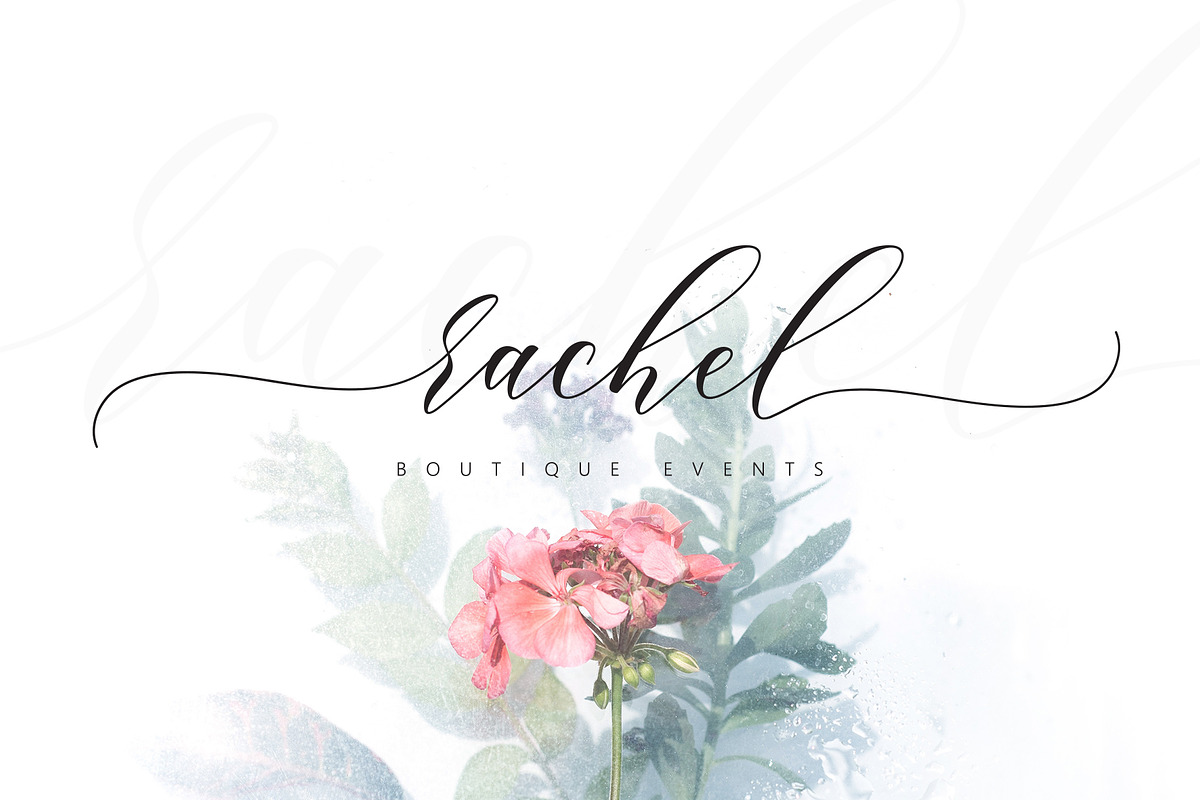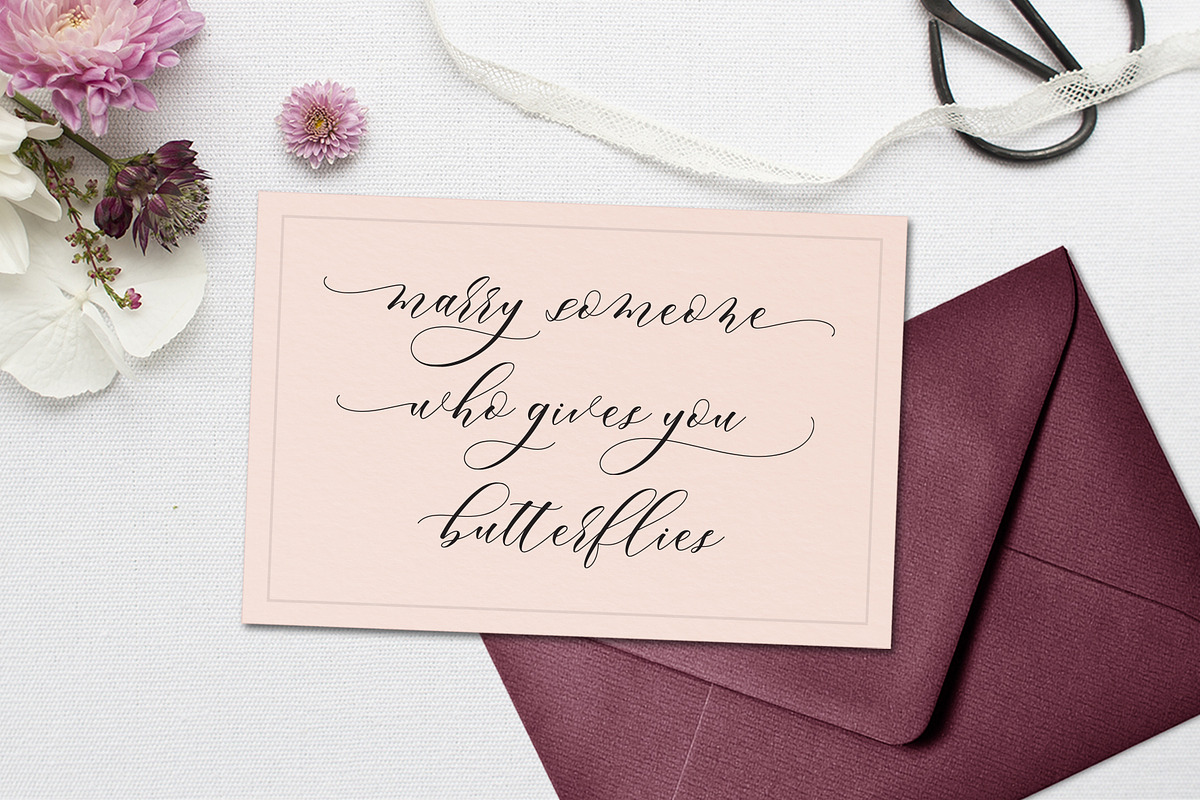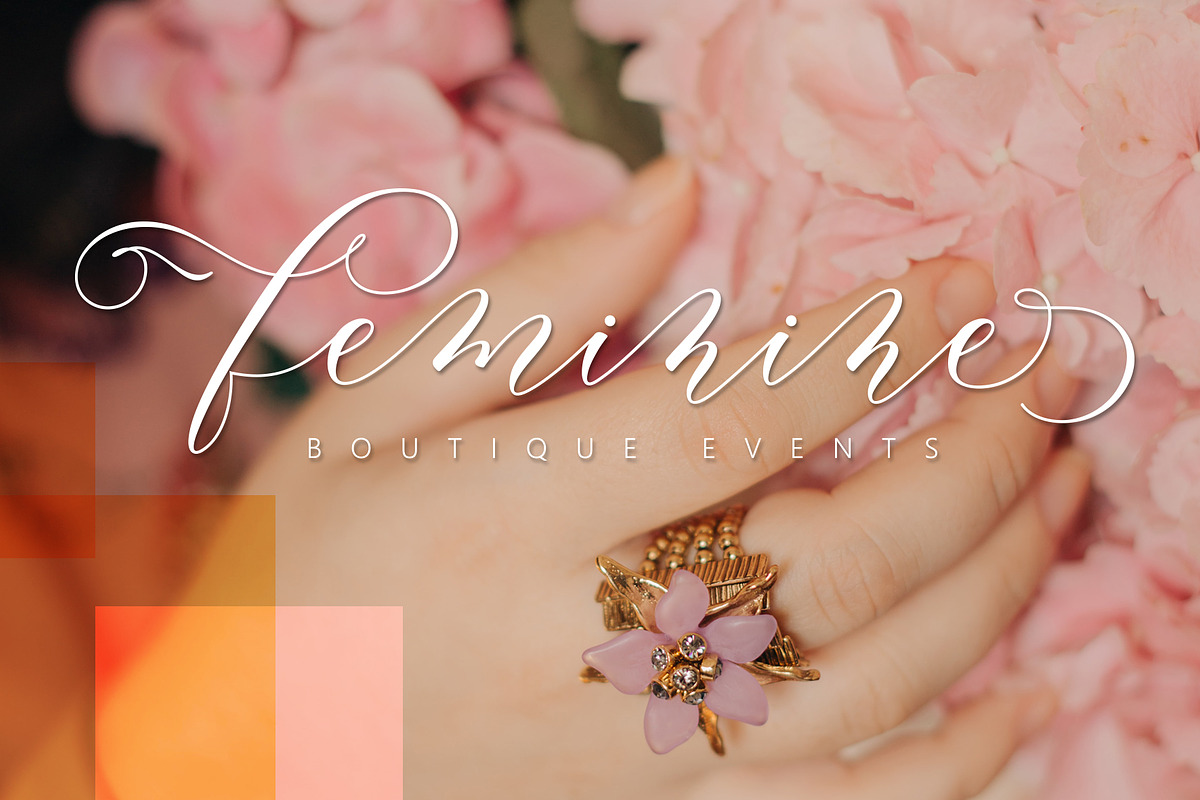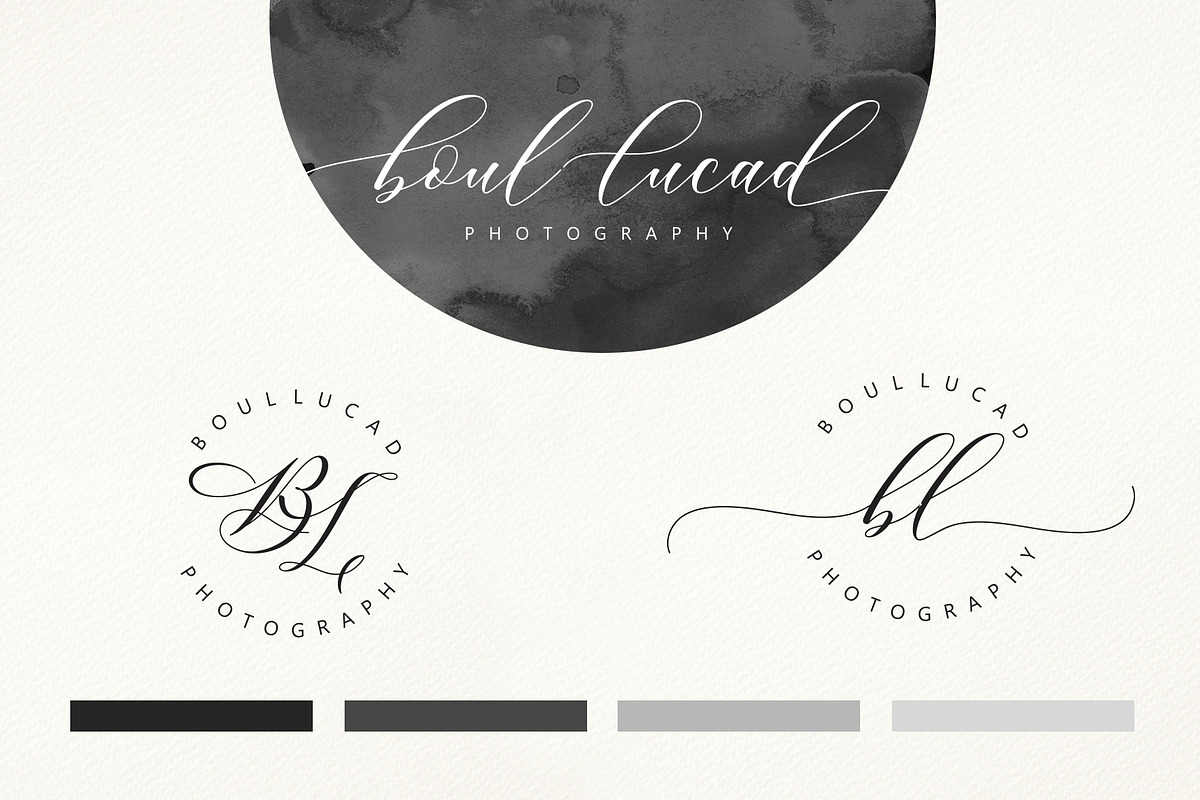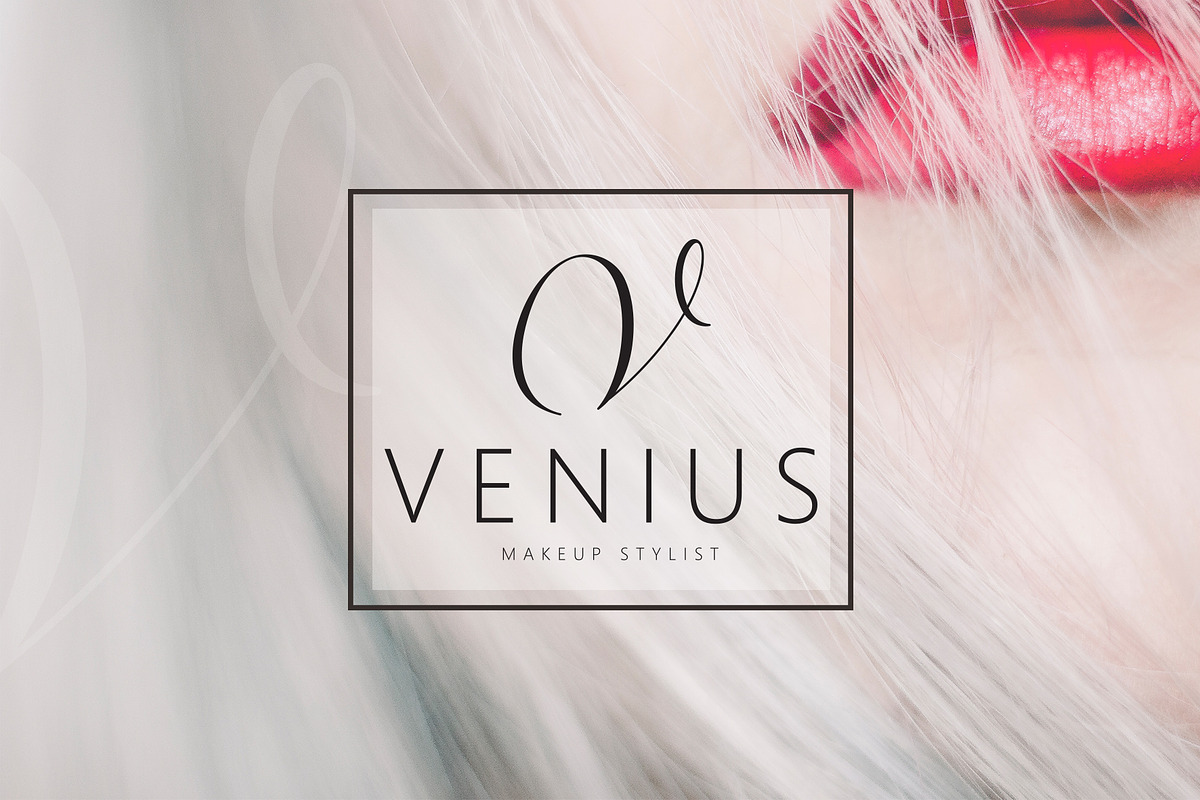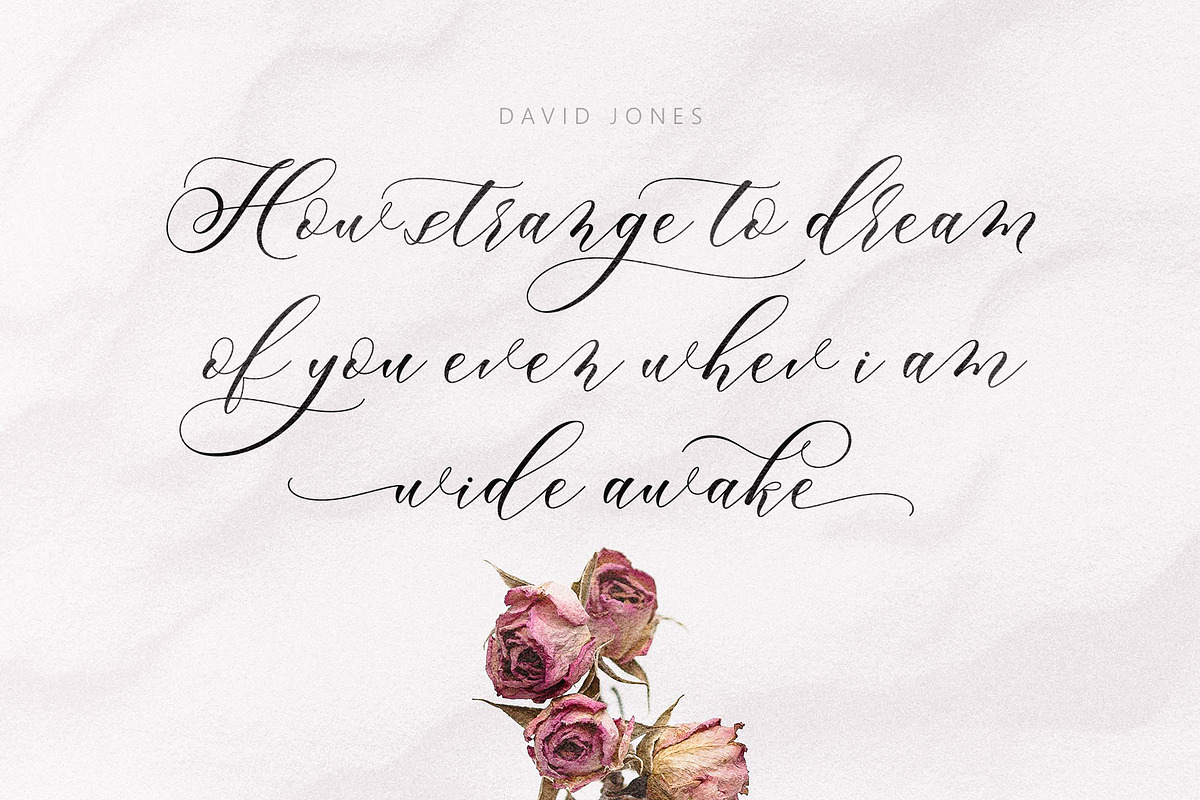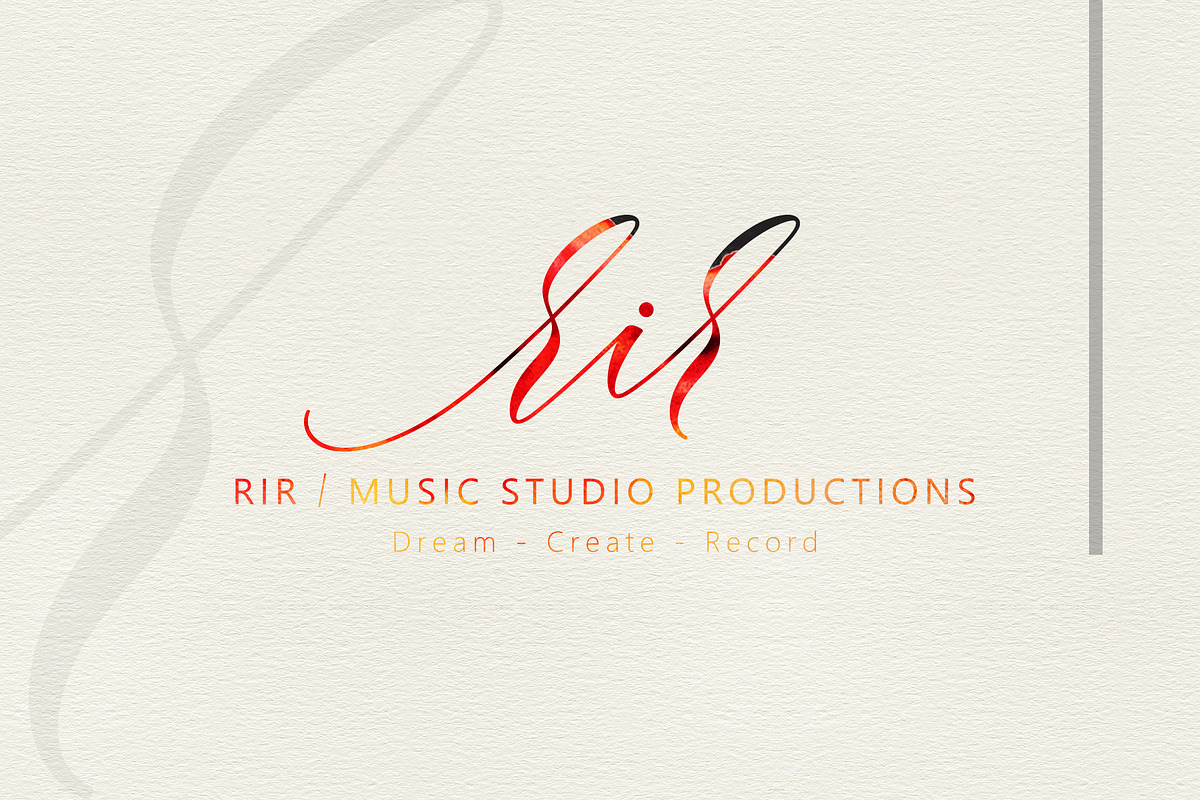
Merylanie Script
Introducing Merylanie Script
Merylanie is a beautiful modern calligraphy script font that is suitable for branding, wedding invitations, greeting cards, posters, name card, quotes, blog header, logo, fashion, apparel, letter, stationery and other projects.